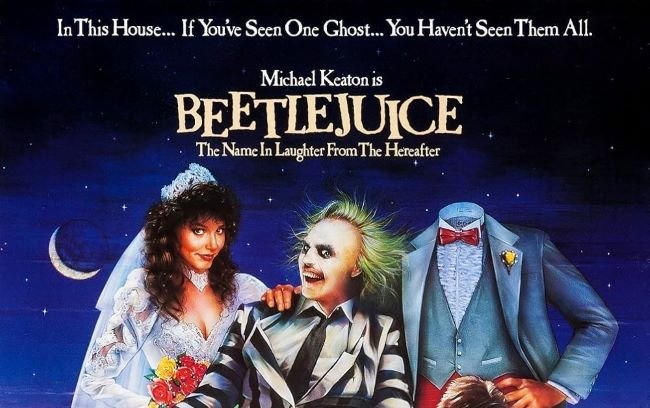
Beetlejuice Font
Beetlejuice Font is a gothic horror display font with bold, dramatic letterforms and a delightfully macabre edge — perfect for Tim Burton’s 1988 dark comedy about a recently deceased couple enlisting the chaotic “bio-exorcist” Betelgeuse to haunt their former home, a film whose black-and-white striped aesthetic and anarchic supernatural humour made it an enduring cult classic and spawned a long-awaited 2024 sequel. The typeface captures the film’s essential tonal balance: genuinely spooky enough to honour the horror genre, playful enough to signal that none of this should be taken entirely seriously.